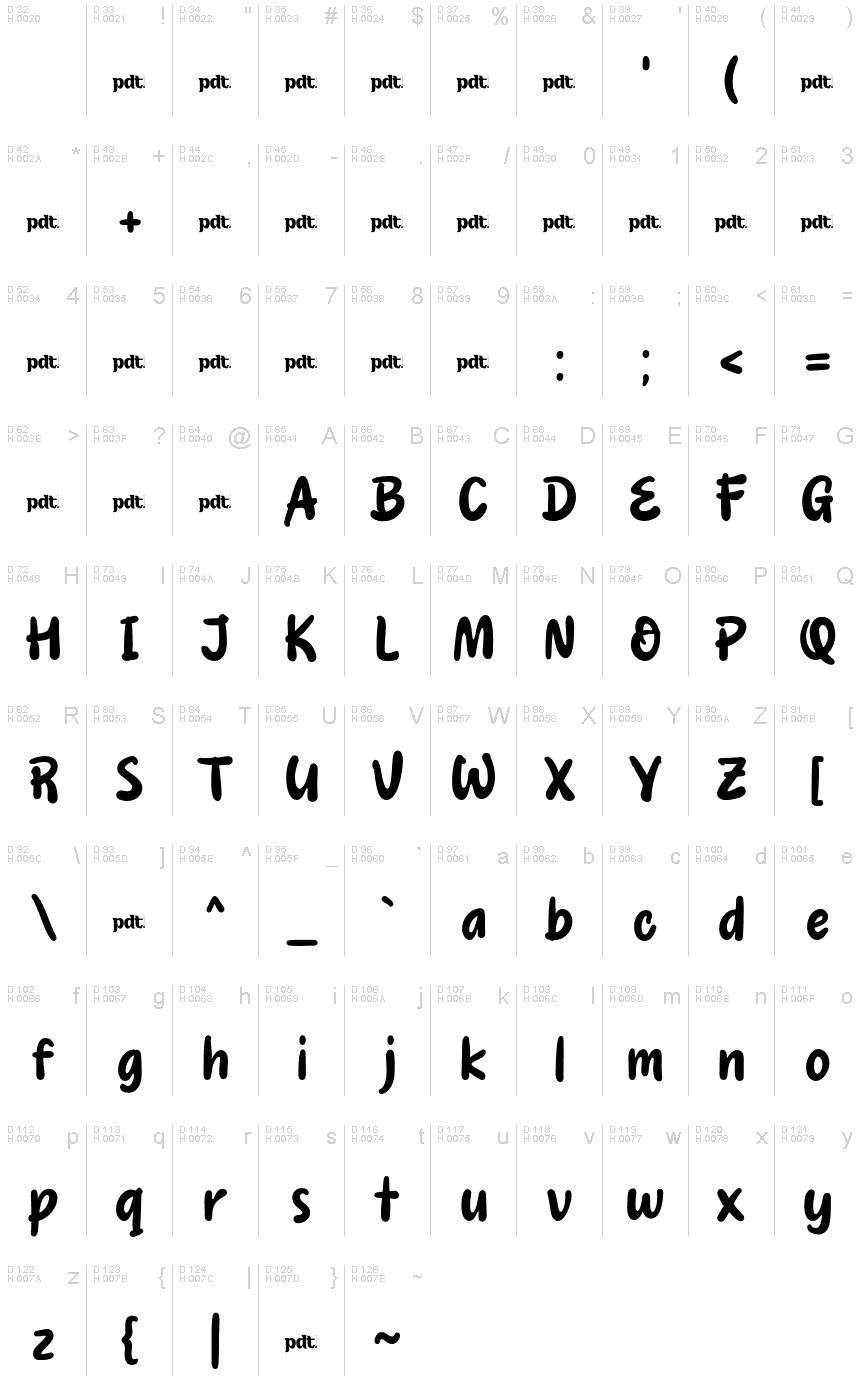
ANOWYtrial-Regular
Anowy, crafted by the innovative minds at Productype, emerges as a font that effortlessly blends the authenticity of hand-painted signs with modern flair. Its smooth brush strokes and bold weight embody a distinctive character, making it an ideal choice for projects that require a touch of personal charisma.
Whether it's empowering brand identities or elevating advertising campaigns, Anowy's versatile style exudes creativity and is poised to leave a lasting impact in a variety of creative applications.